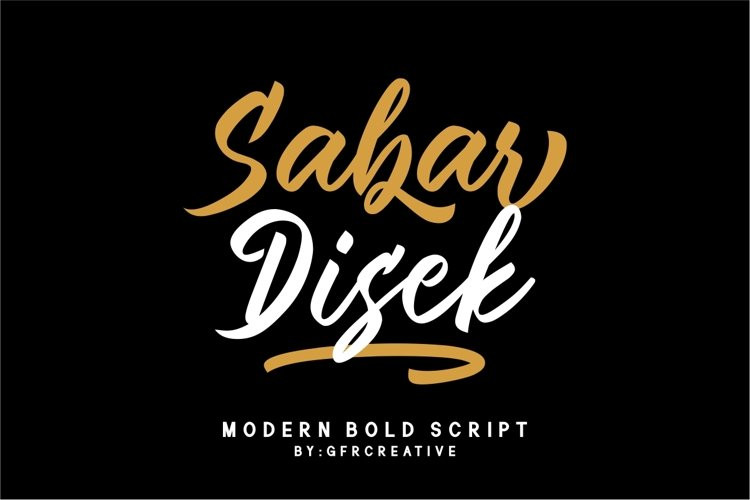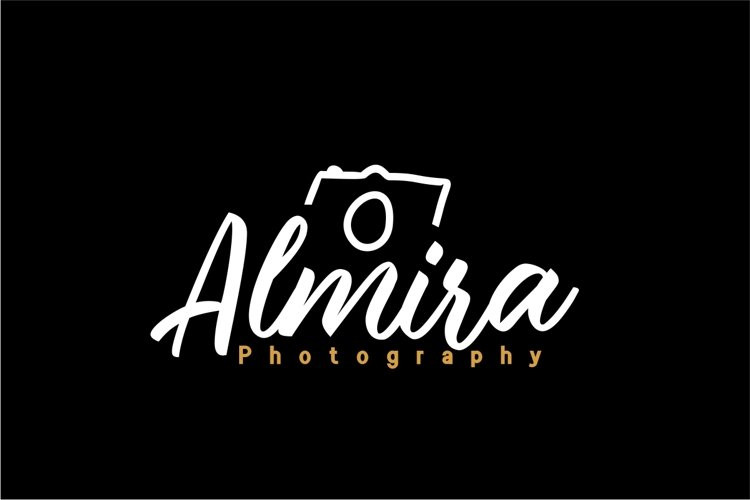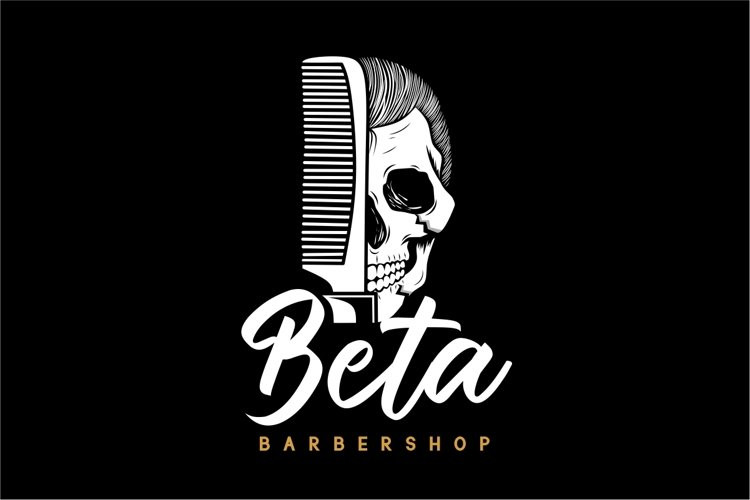
Sabar Disek Font
Sabar Disek FontSabar Disek is handwritten with a bold style and character.
A very suitable font to use in many ways for your latest projects. is perfect for logos & branding, photography, invitations, watermarks, advertisements, product design, stationery, wedding designs, labels, product packaging, special events or anything that requires handwritten content.
Also available for some lowercase characters that have a swash at the end, punctuation, numbers, and extensive language support